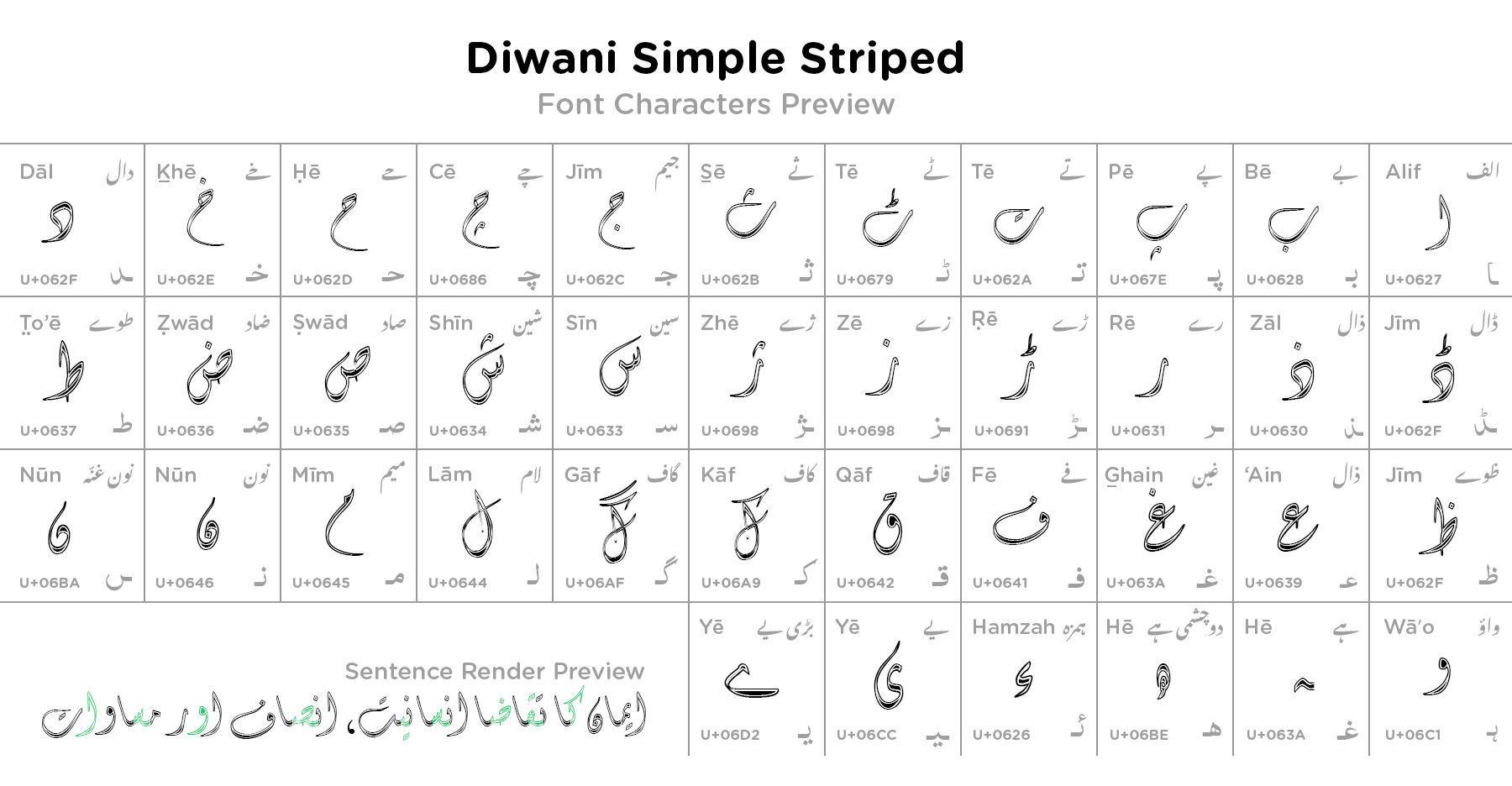
Diwani Simple Striped, designed by Microsoft, is a cursive and decorative Arabic font released on April 16, 2019. Inspired by the Traditional Divani script, it features long-flowing curly elongated terminals and striped letters, half hollow and half-filled for a unique look. With 474 characters and 252 glyphs, it ensures compatibility with various languages and Unicode blocks. The font’s cursive and flowing style and decorative loops and curls add elegance to any design. However, its highly decorative nature may affect legibility, making it best suited for short text blocks. The changing thickness and irregular gaps inside letters contribute to its distinctive striped appearance.
Featuring elongated ascenders and descenders, Diwani Simple Striped offers a formal and sophisticated look, resembling a graceful dancer in a flowing gown. Its visual balance, intricate details, and sharp contrast make it suitable for furniture branding, logos, and other decorative projects where visuals are crucial. Although legibility may be a concern at smaller sizes due to its intricate design, it remains a visually striking option for those seeking a distinctive and elegant Arabic font with a touch of modern flair.